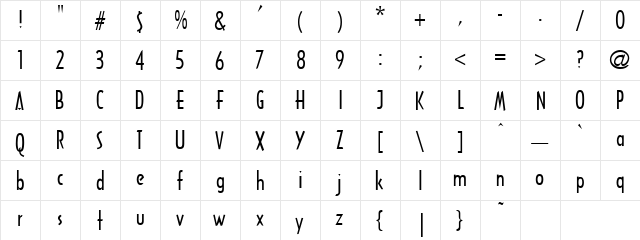
Green River 2 Regular
Design Context for Green River 2 Typeface
Green River 2 is a composed and adaptable typeface that performs quietly and consistently across a wide range of design contexts.